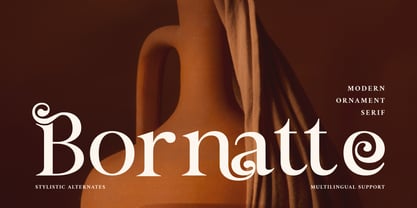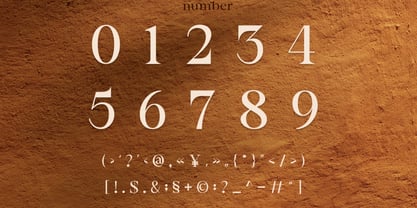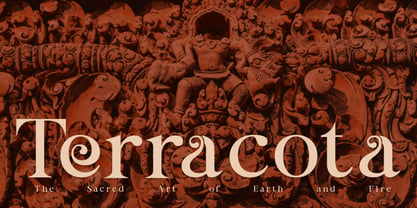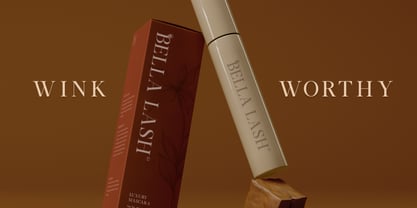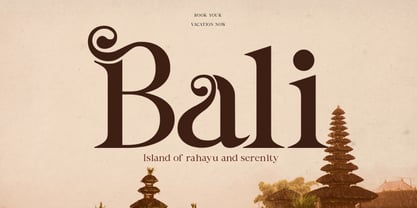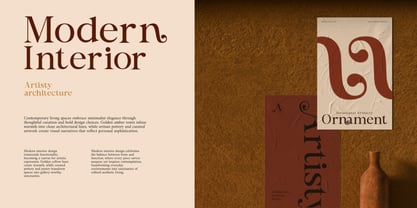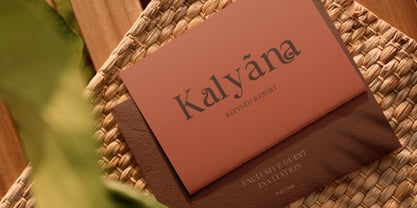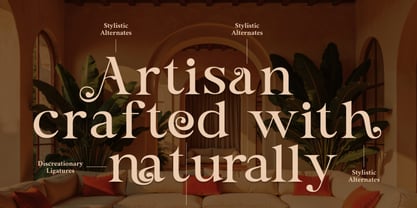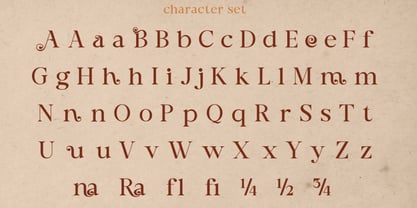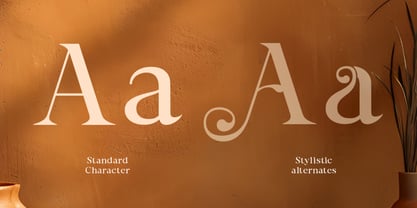
Bornatte
by Rasio Studio
The Bornatte Font Family was designed by Fajar Indra and published by Rasio Studio. Bornatte contains 1 styles. More about this family
Bornatte blends refined classic elegance with expressive ornamental detail. Each character is crafted with subtle curves, graceful contrast, and decorative alternates that give it a unique personality. Designed by Rasio Studio, Bornatte captures a sense of sophistication and warmth, perfect for luxurious and editorial applications.
Relevance and Use Cases is perfect for luxury branding, editorial design, fashion magazines, beauty product packaging, invitations, stationery, wedding logos, boutique branding, and artistic typographic compositions that demand elegance and ornamentation.
Designers: Fajar Indra
Current Foundry: Rasio Studio